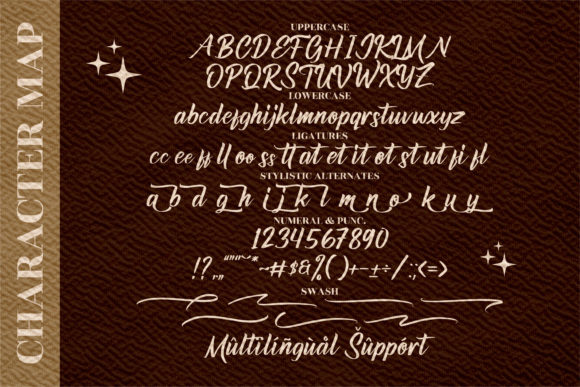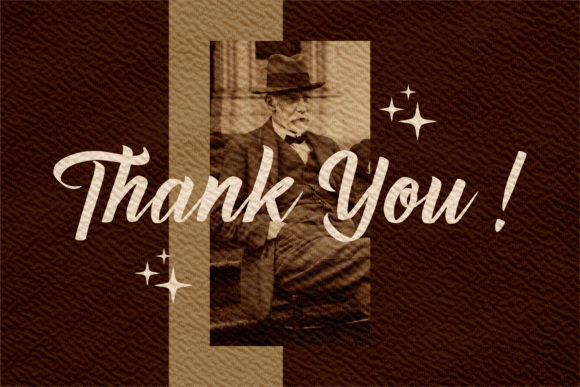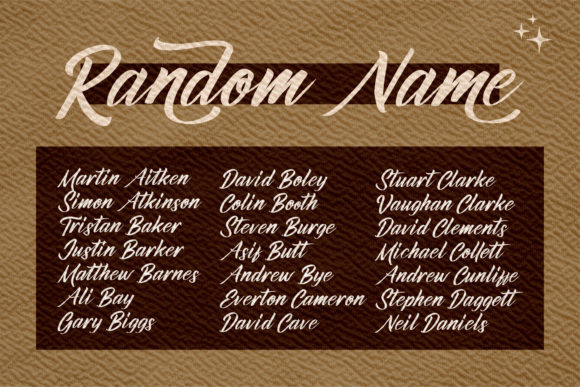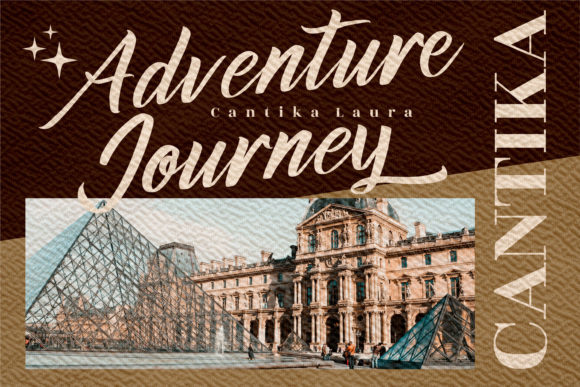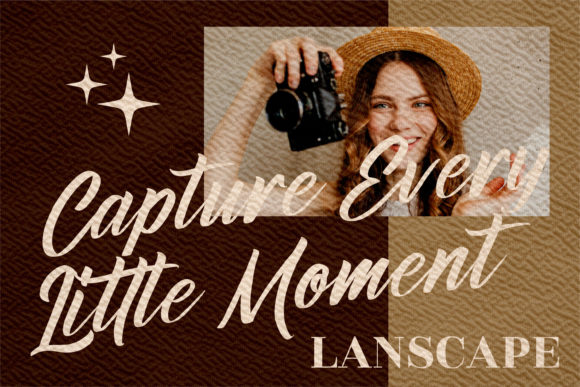
About Richardo Kenedy Font
Introducing Richardo Kenedy, a beautiful brushed handwritten font that brings a unique feel and a stunning impact to your design projects. With its luxurious spark, Richardo Kenedy elevates the visual appeal of any creation, adding a touch of elegance and sophistication.
The brushed style of Richardo Kenedy gives the font a distinct and organic look. Each letter is crafted with precision, capturing the natural flow and movement of brush strokes. The result is a font that exudes a sense of beauty and artistry, making it perfect for projects that require a touch of luxury and refinement.
One of the great features of Richardo Kenedy is its PUA encoding, which allows you to easily access all of the amazing glyphs and ligatures. This opens up a world of creative possibilities, enabling you to customize and personalize your designs with ease.
Whether you’re working on branding materials, packaging, invitations, posters, or any other design project, Richardo Kenedy is sure to make a statement. Its unique feel and stunning impact capture attention and leave a lasting impression on your audience.
Embrace the luxury and sophistication of Richardo Kenedy and watch as your design projects come to life. Its brushed handwritten style adds a touch of elegance and individuality, setting your work apart from the rest. With its PUA encoding, you have the freedom to explore the amazing range of glyphs and ligatures, ensuring that your designs are as unique as your imagination.
In summary, Richardo Kenedy is a beautiful brushed handwritten font that adds a luxury spark to your design projects. Its unique feel and stunning impact make it perfect for creating visually appealing and sophisticated designs. With its PUA encoding, you have full access to the amazing glyphs and ligatures, allowing for endless customization. Embrace the beauty of Richardo Kenedy and let it bring your design projects to new heights of elegance and refinement.